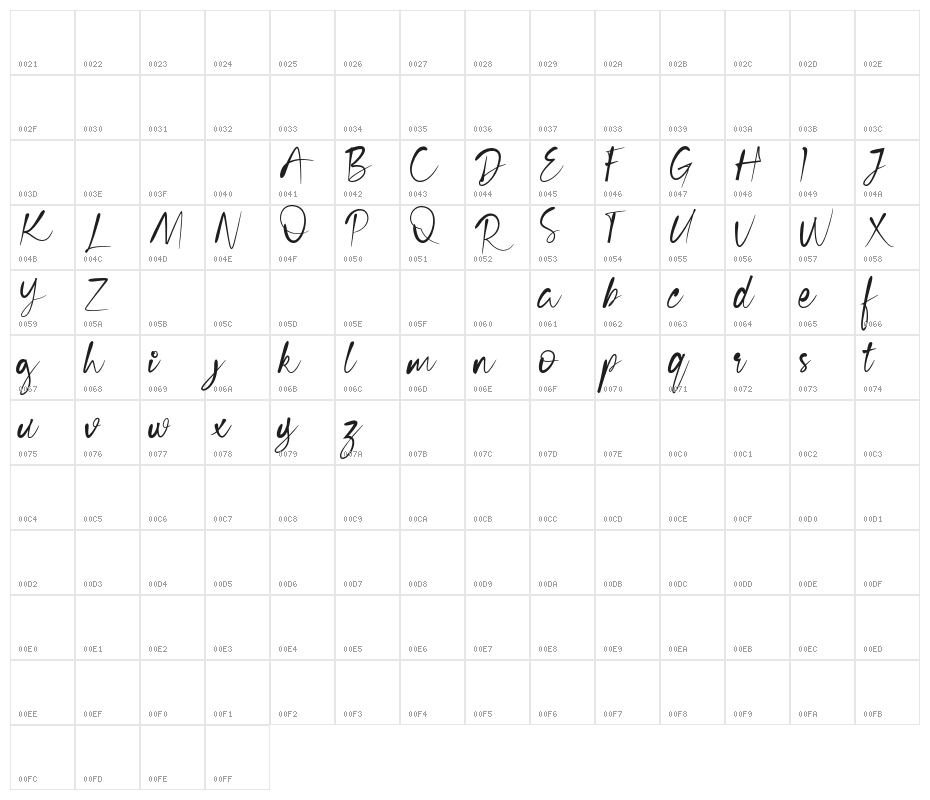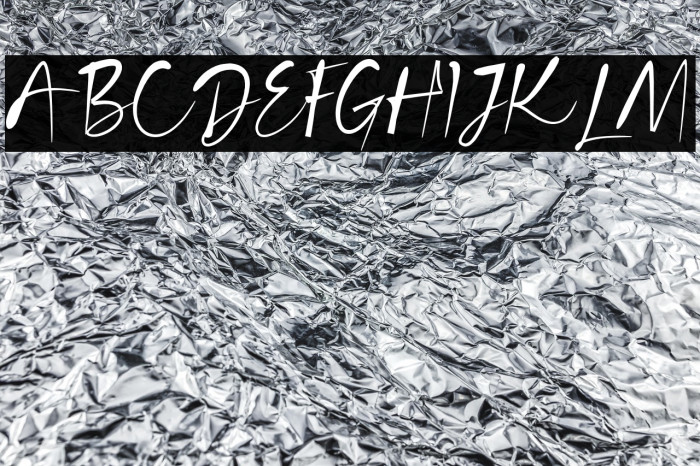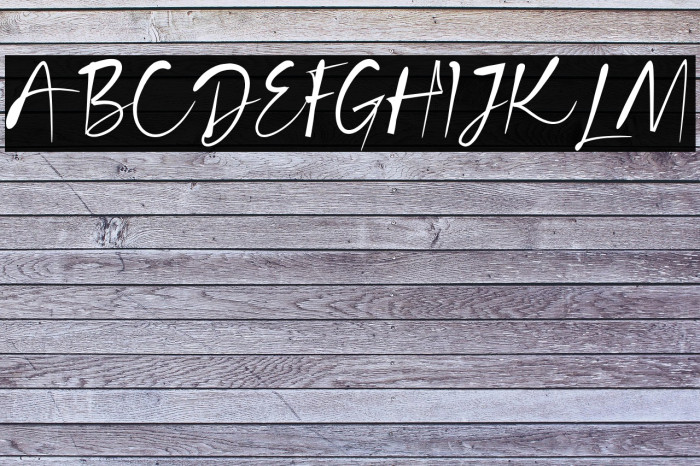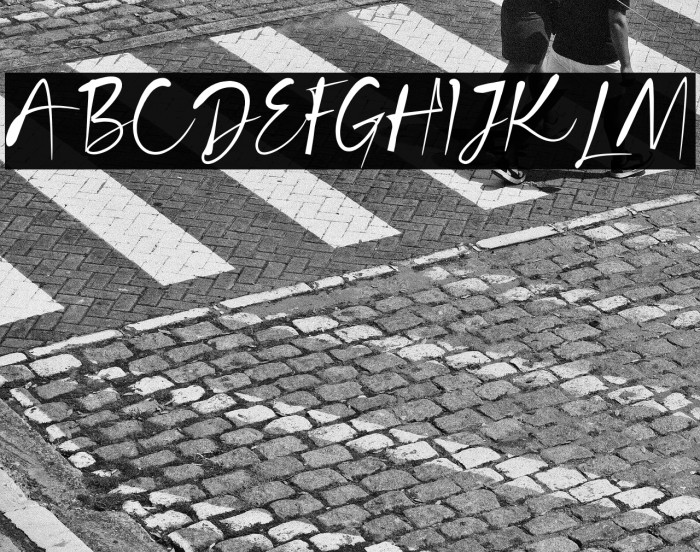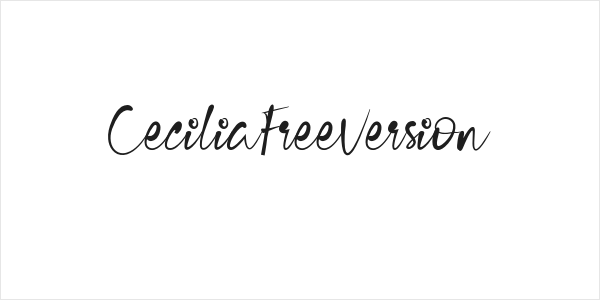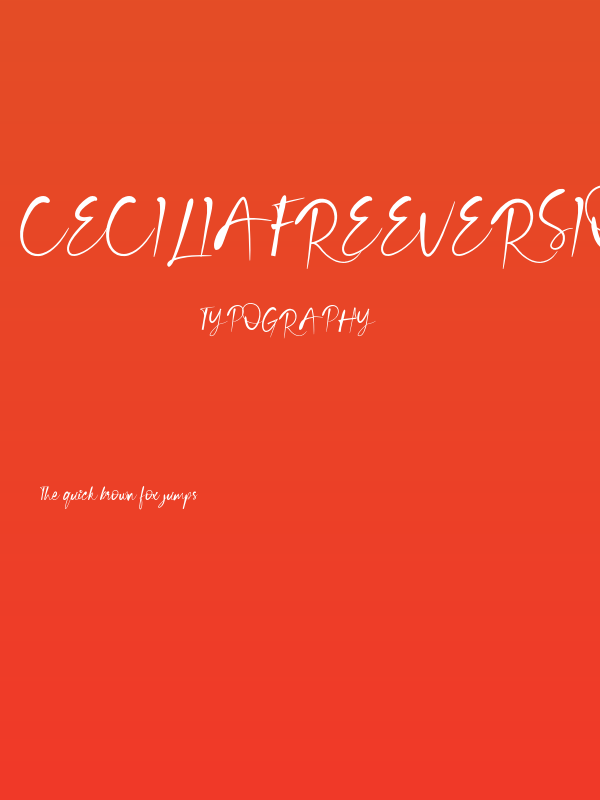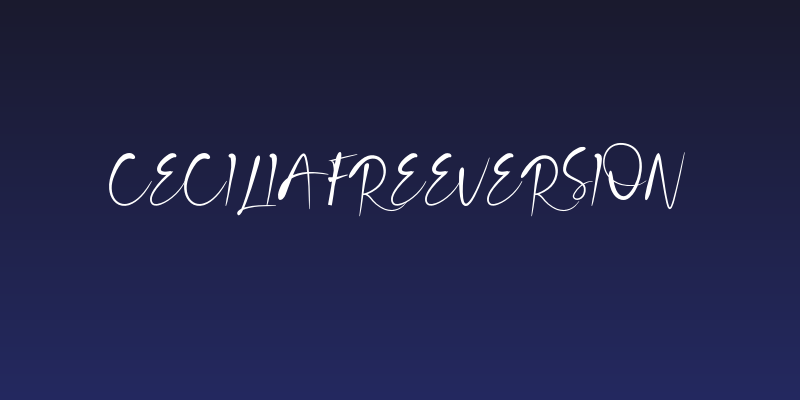
CeciliaFreeVersion Font
CeciliaFreeVersion Description
This font features a dynamic and expressive script style, characterized by its fluid and elegant strokes. The uppercase letters are tall and slender, with a graceful flow that adds a touch of sophistication. The lowercase letters maintain a consistent rhythm, with some characters exhibiting playful loops and swashes. The overall appearance is both artistic and modern, making it suitable for creative and stylish applications. The font's unique personality is enhanced by its varying stroke widths, which add depth and visual interest.
| Proposed Projects | Ideal for wedding invitations, branding, greeting cards, and artistic projects. |